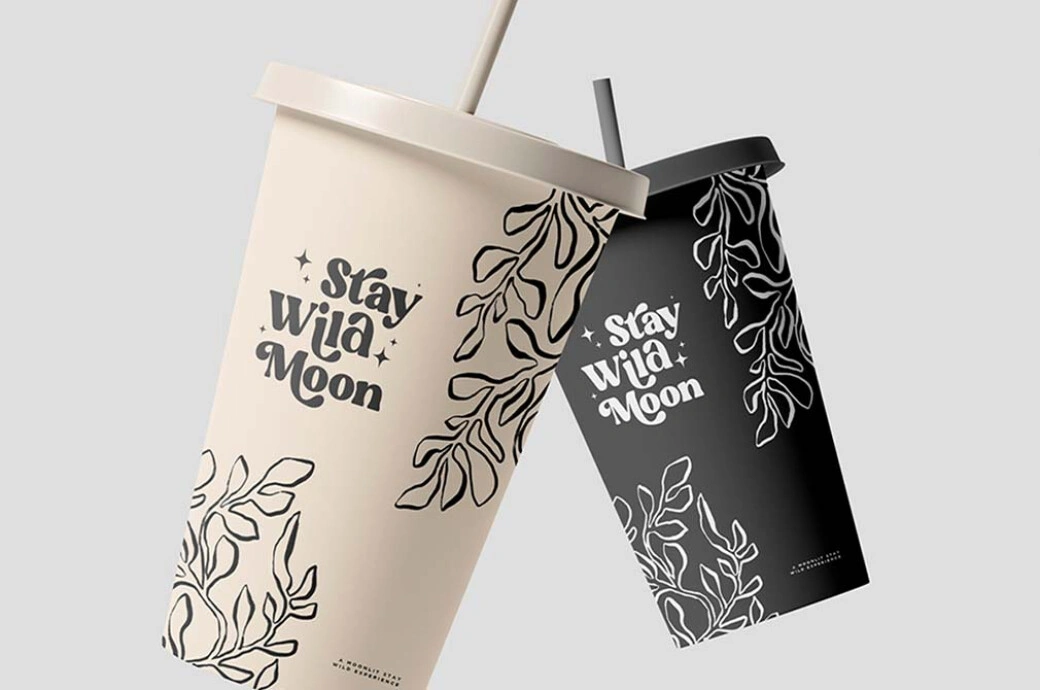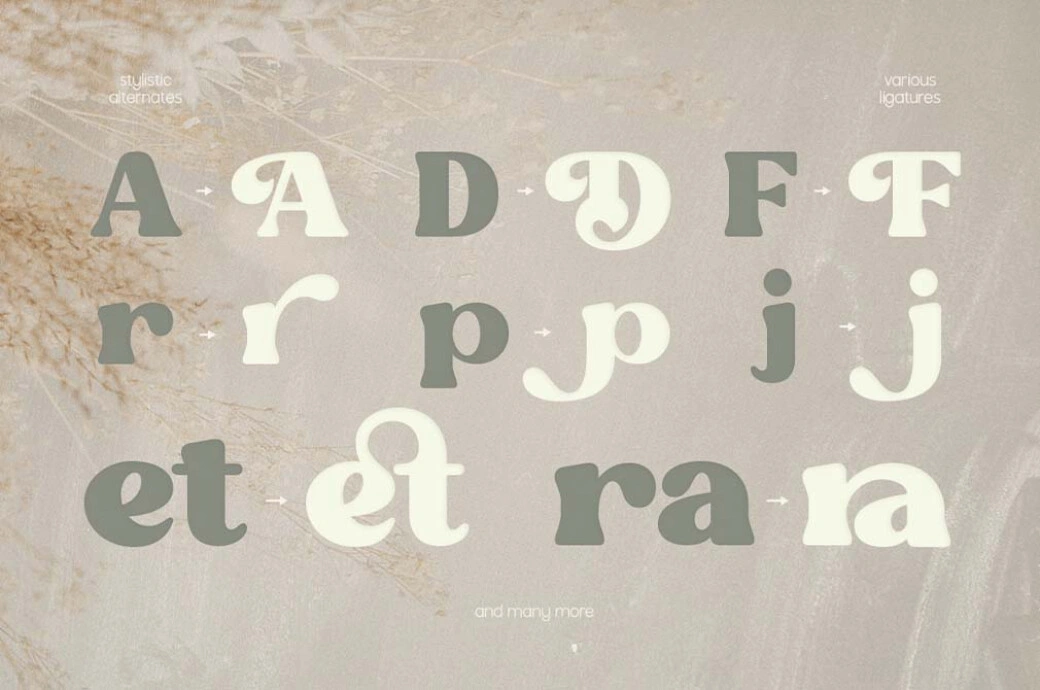
Fresh Almond – Elegant Serif Font
Introducing Fresh Almond, a sophisticated serif font designed for elegance and versatility. Featuring a perfect blend of modern and classic elements, this font is ideal for branding, editorial design, packaging, invitations, and more. With upper and lowercase letters, numerals, punctuation marks, and multilingual support, Fresh Almond brings timeless beauty to any project.
Why Choose Fresh Almond?
• Elegant & Timeless Design – A refined serif font with a balance of classic and modern aesthetics.
• Stylish Ligatures – Unique letter combinations add a luxurious and artistic touch.
• Full Character Set – Includes uppercase, lowercase, numbers, and punctuation for complete versatility.
• Multilingual Support – Designed for global use with accented characters.
• High-Quality & Versatile – Perfect for both digital and print designs, ensuring stunning results.
• Elegant Ligatures for a Stylish Look
Perfect For:
• Luxury Branding & Logo Design
• Magazines & Editorial Projects
• Wedding Invitations & Stationery
• Packaging & Product Labels
• Social Media Graphics & Ads
Enhance your designs with Fresh Almond, an elegant serif font crafted for high-end branding, editorial layouts, and stylish typography. Whether you’re designing for print or digital, this font delivers sophistication and readability. Download now and bring timeless elegance to your projects.